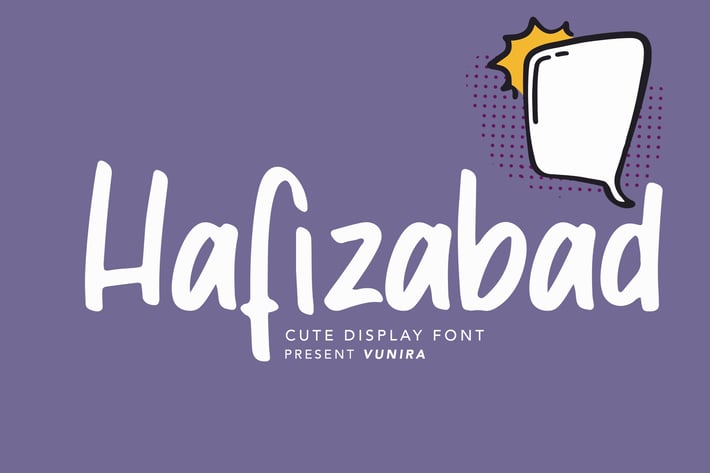
Hafizabad | Cute Display Font
Hafizabad | Cute Display Font with a calligraphy style, So beautiful on invitation like greeting cards, branding materials, business cards, quotes, posters, and more!